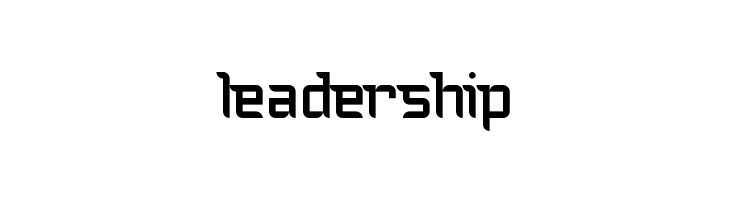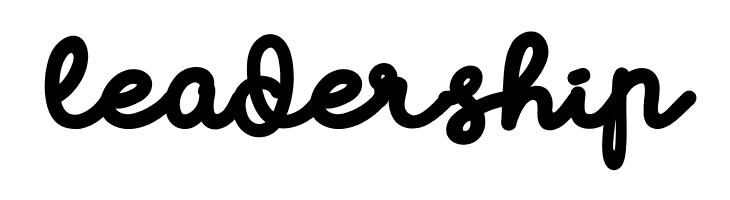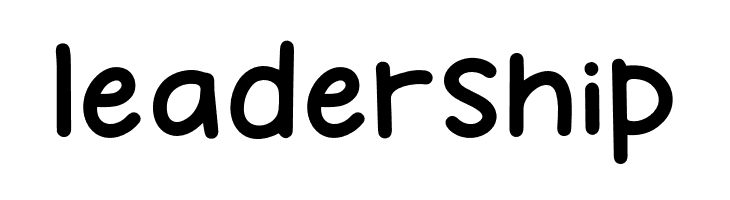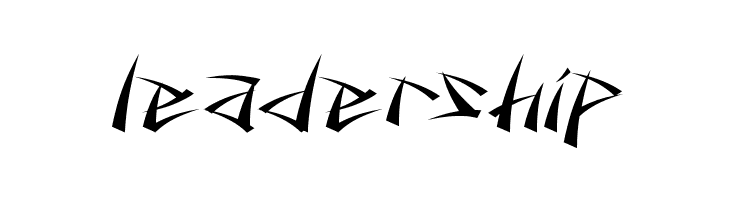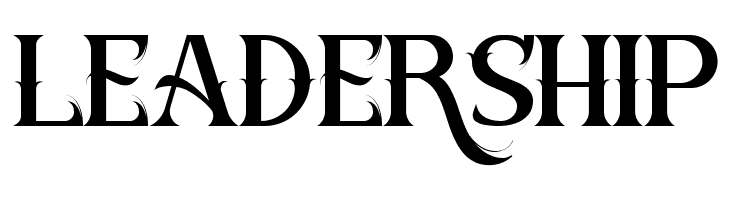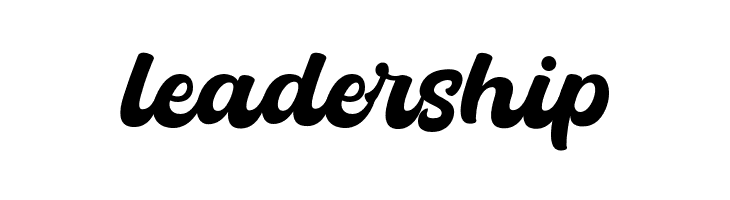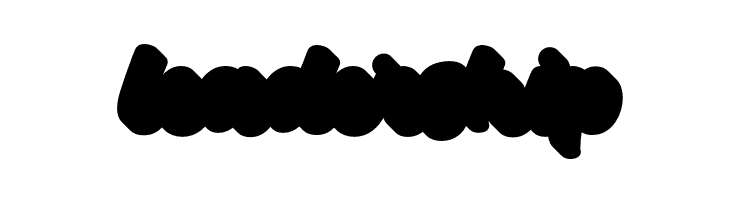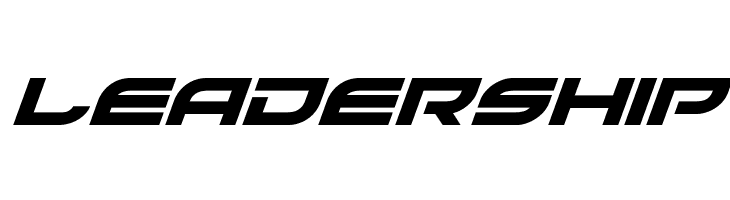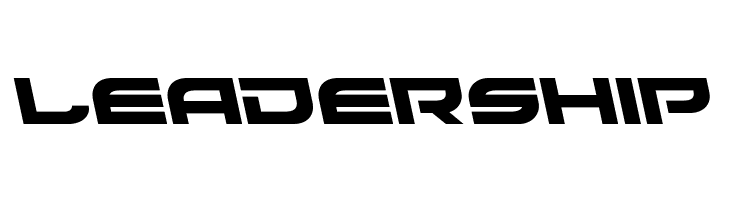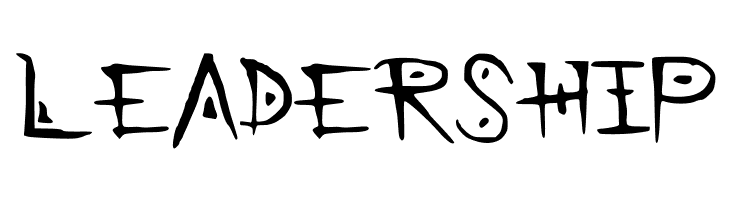
A clean, modern sans-serif font with geometric uniformity.
A playful, casual handwritten font with smooth curves and a friendly appearance.
A bold, slanted font with sharp edges and a retro-futuristic style.
A playful, handwritten font with bold strokes and a casual, informal style.
A playful, hand-drawn font with a whimsical and bold style.
A bold, high-contrast font with sharp angles and modern flair.
A classic serif font with elegant, sharp lines and traditional details.
A scratchy, hand-drawn font with dynamic texture and bold style.
A bold, brush-style font with dynamic, textured strokes.
A bold, angular font with a futuristic and industrial design.
A bold, blocky font with strong, uniform characters.
A bold, geometric font with strong legibility and modern appeal.
A pixelated, monospaced font with a retro digital aesthetic.
A bold, textured brush font with a dynamic, hand-painted style.
A playful, hand-drawn font with a whimsical and casual style.
A bold, decorative font with a layered, three-dimensional design.
A bold, playful handwritten font with thick, rounded strokes.
A bold, playful handwritten font with a dynamic and energetic style.
A bold, high-contrast serif font with dramatic strokes and sharp serifs.
A bold, condensed, and geometric font ideal for impactful headlines.
A bold, expressive brush script font with dynamic and artistic flair.
A bold, energetic brush script with dynamic strokes and expressive characters.
A modern, angular font with geometric shapes and sharp lines.
A sophisticated and elegant handwritten cursive font.
An elegant, flowing script font with graceful curves and a sophisticated style.
A modern, handwritten font with a fluid and elegant style.
An elegant and flowing script font with a refined, handwritten style.
A lively and elegant script font with flowing, cursive letterforms.
A dynamic, cursive font with expressive, flowing letterforms and artistic flair.
A bold, modern sans-serif font with strong geometric lines.
A Gothic-style font with sharp, angular lines and ornate detailing.
A bold, brush-style font with a gritty, expressive texture.
A bold, geometric display typeface with strong, angular shapes.
A playful handwritten font with tall, narrow letters and fluid strokes.